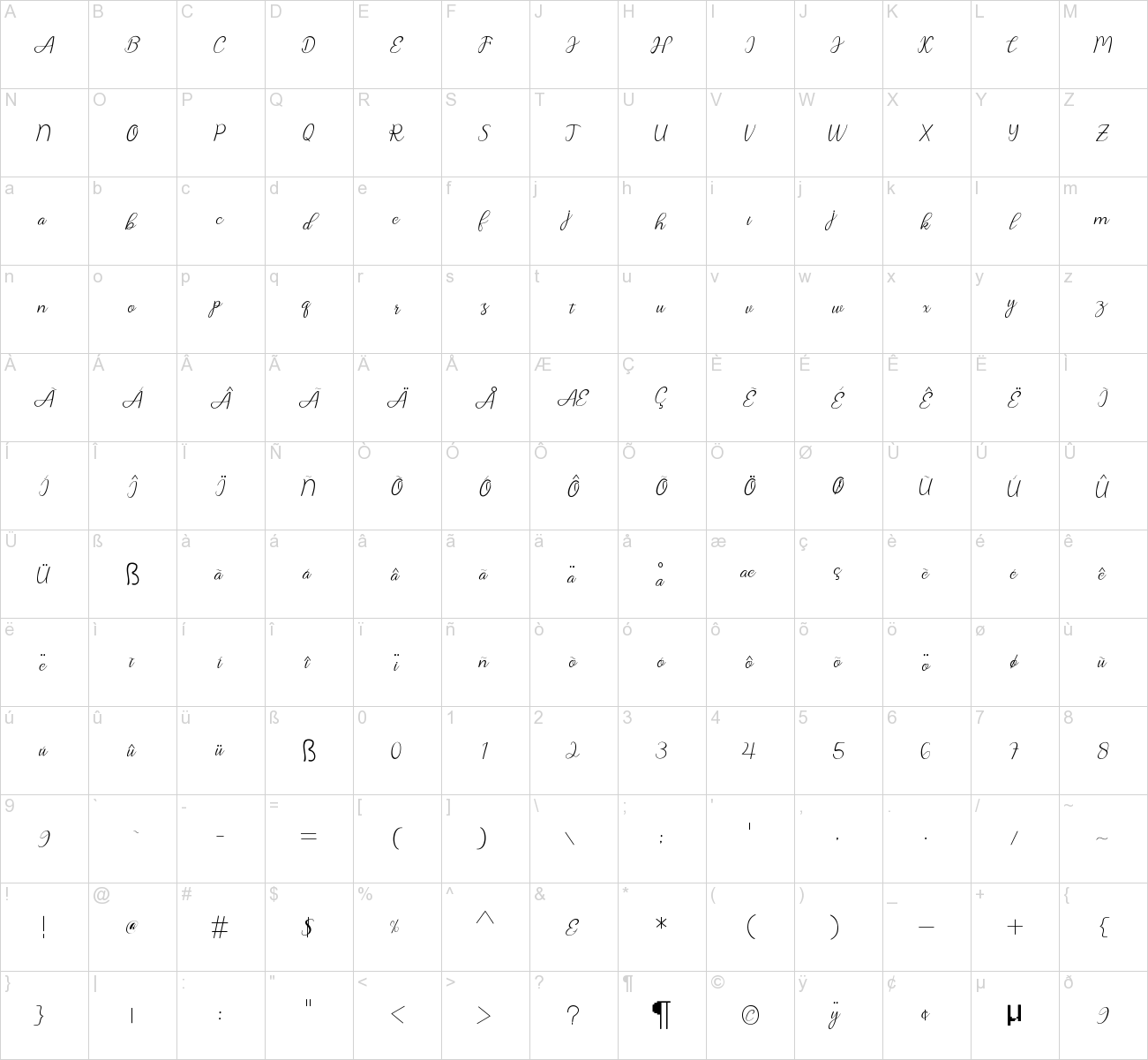
Chanteg Script Font
Chanteka Scrip Modern Calligraphy This font is designed with handwriting, and has a modern and unique calligraphy form, its writing style is very natural. Chanteka script has a very unique style of calligraphy, very suitable for use in modern design works.can be used for business cards and wedding.
Classification: | Calligraphy, Script |